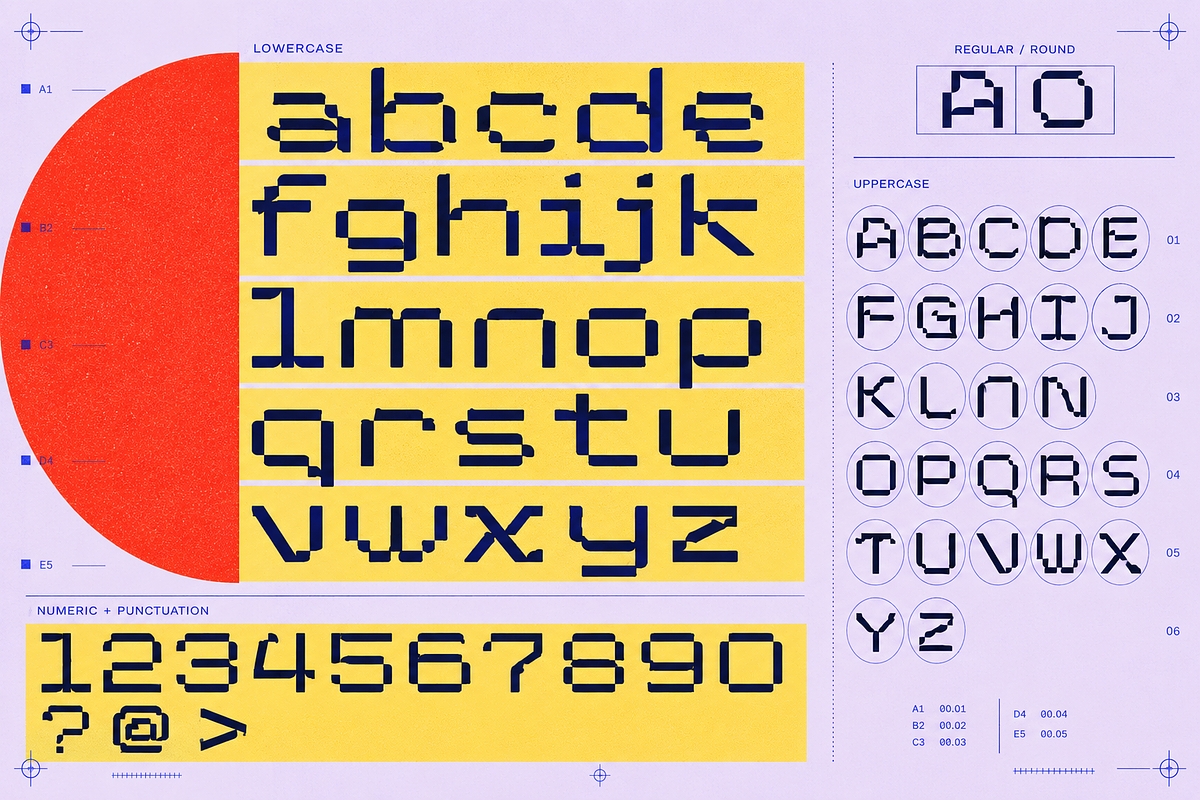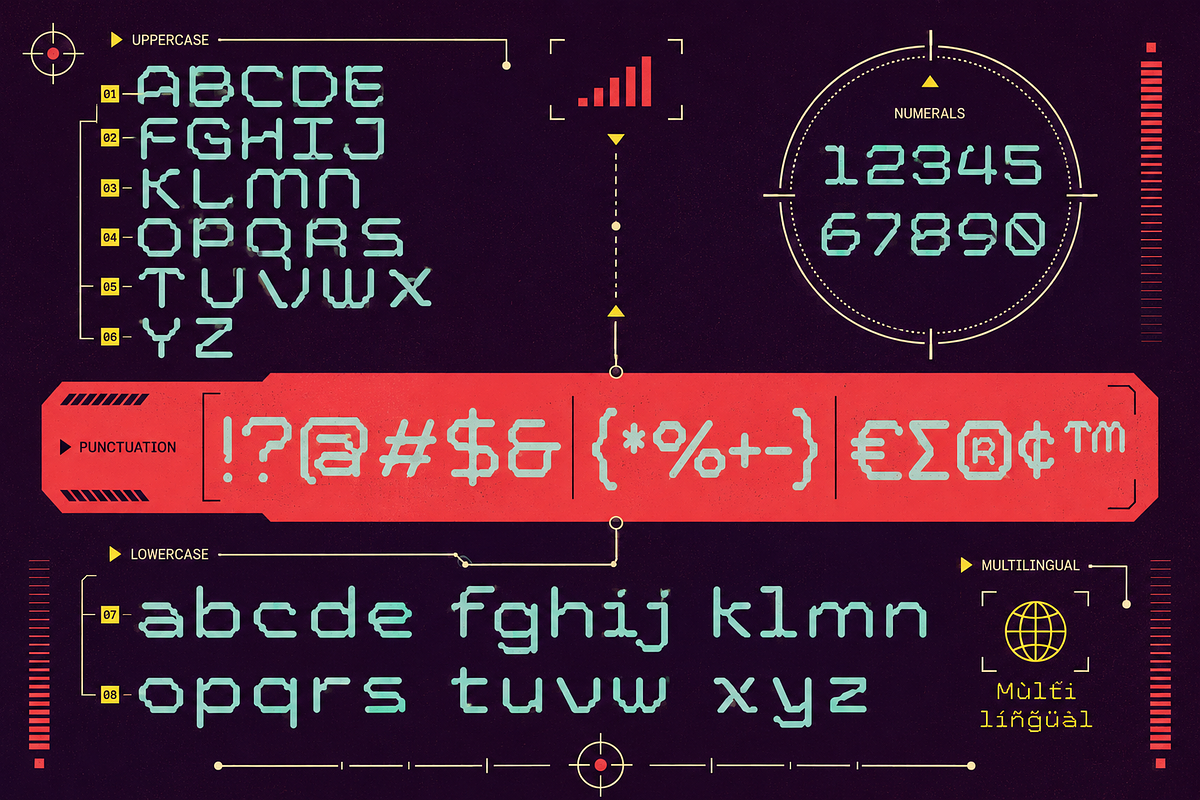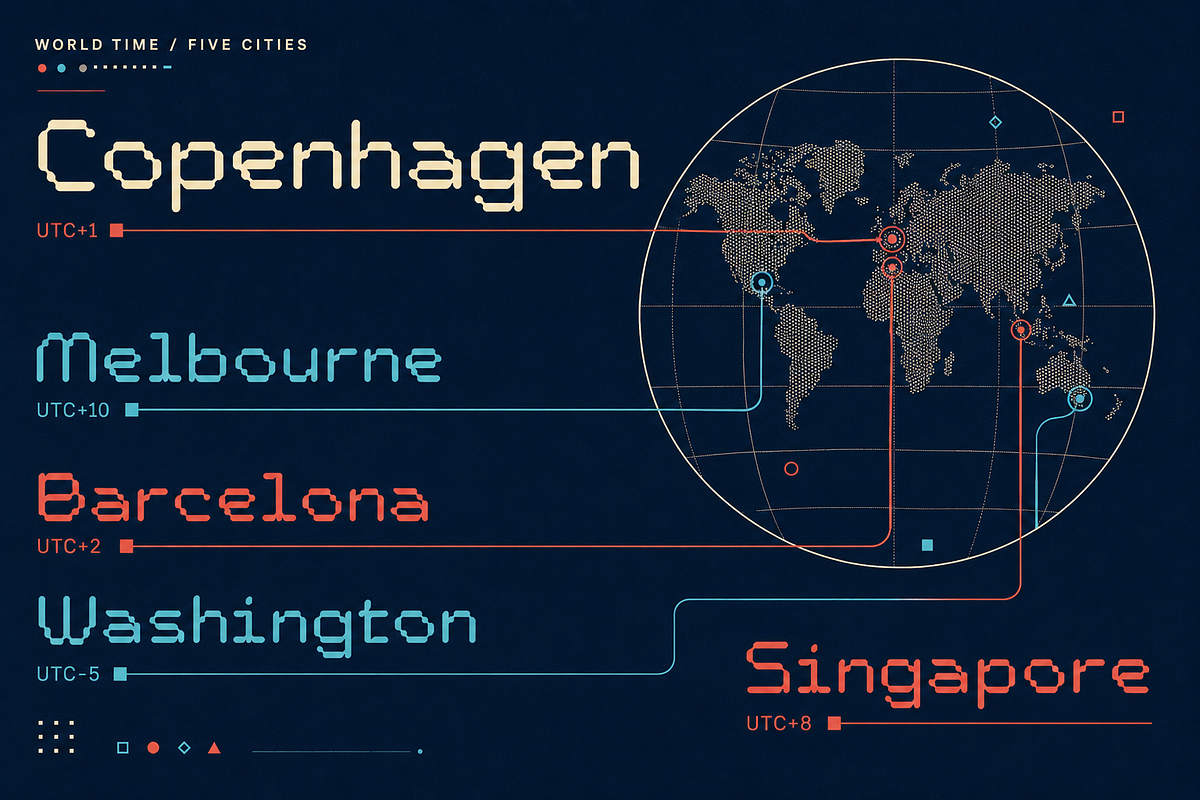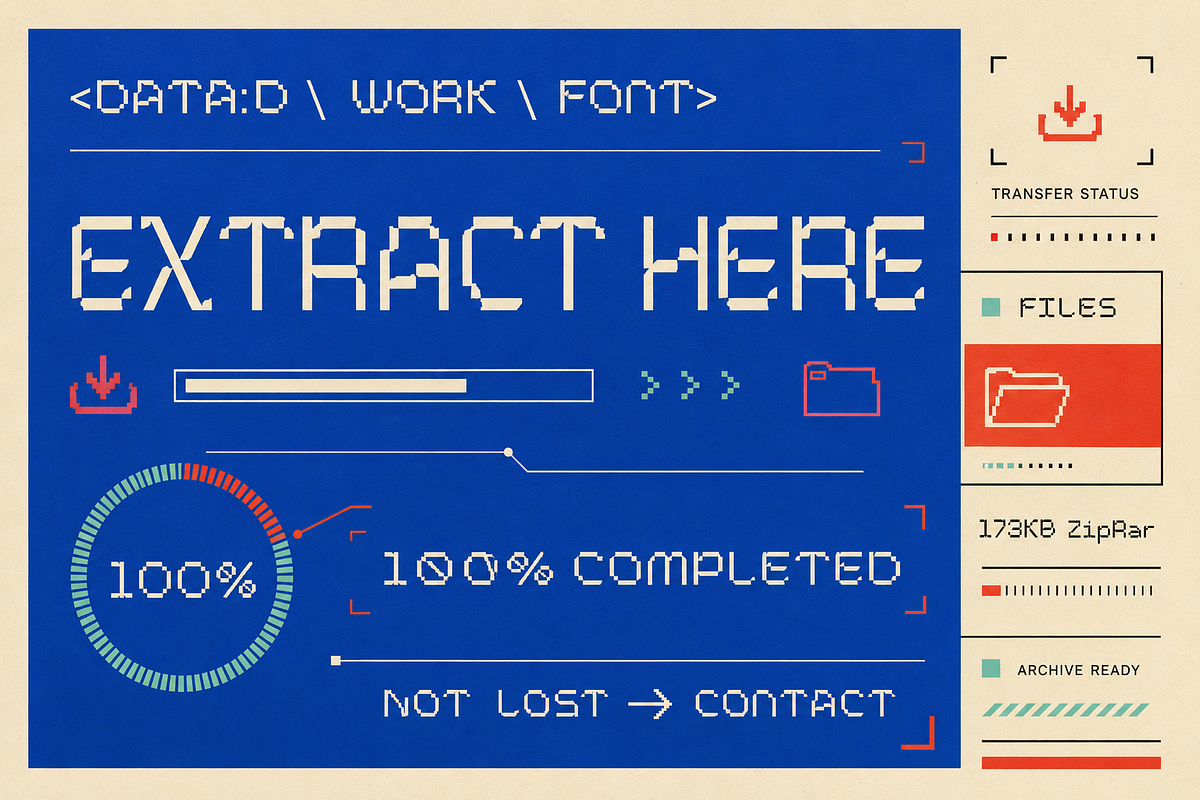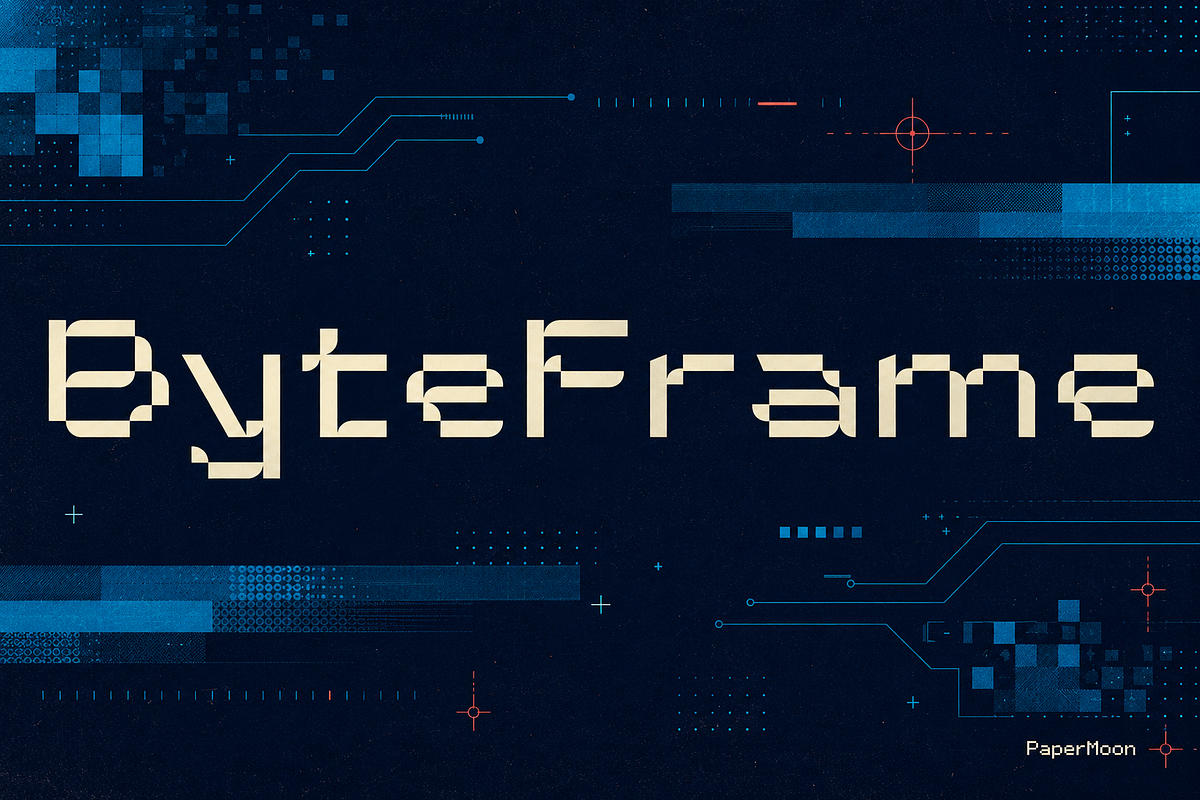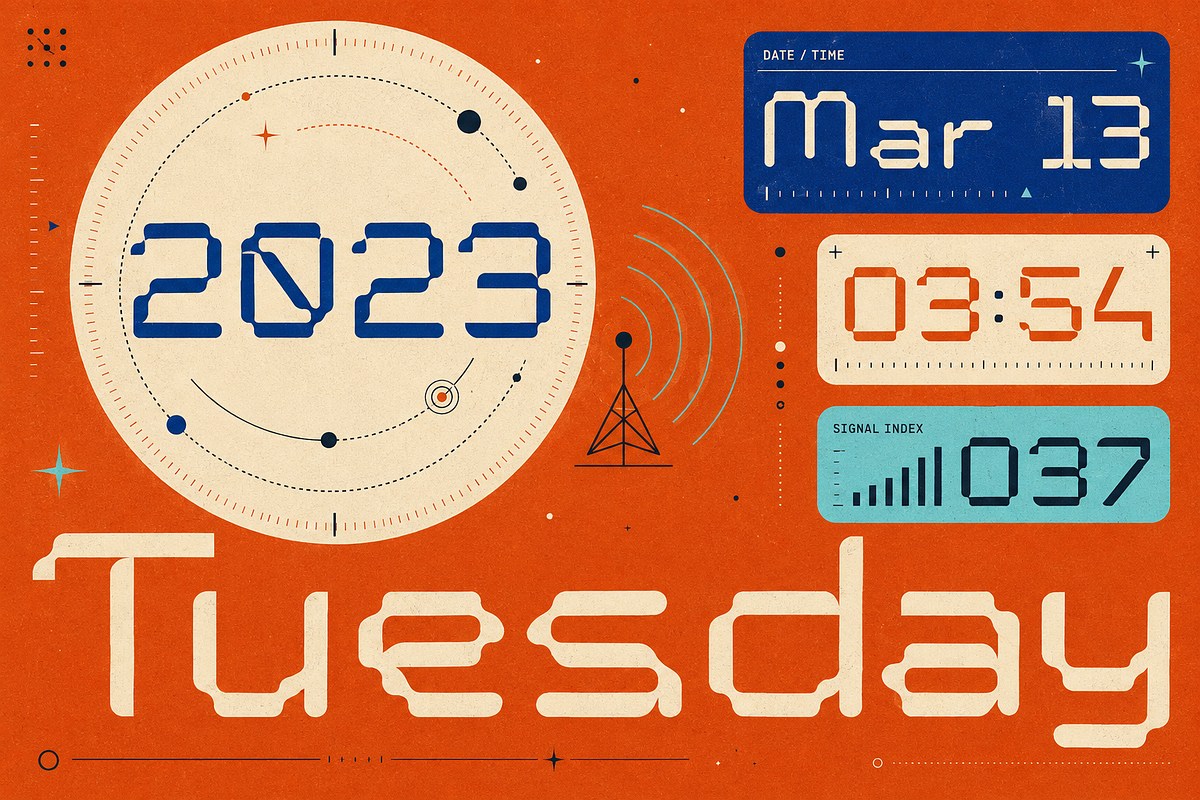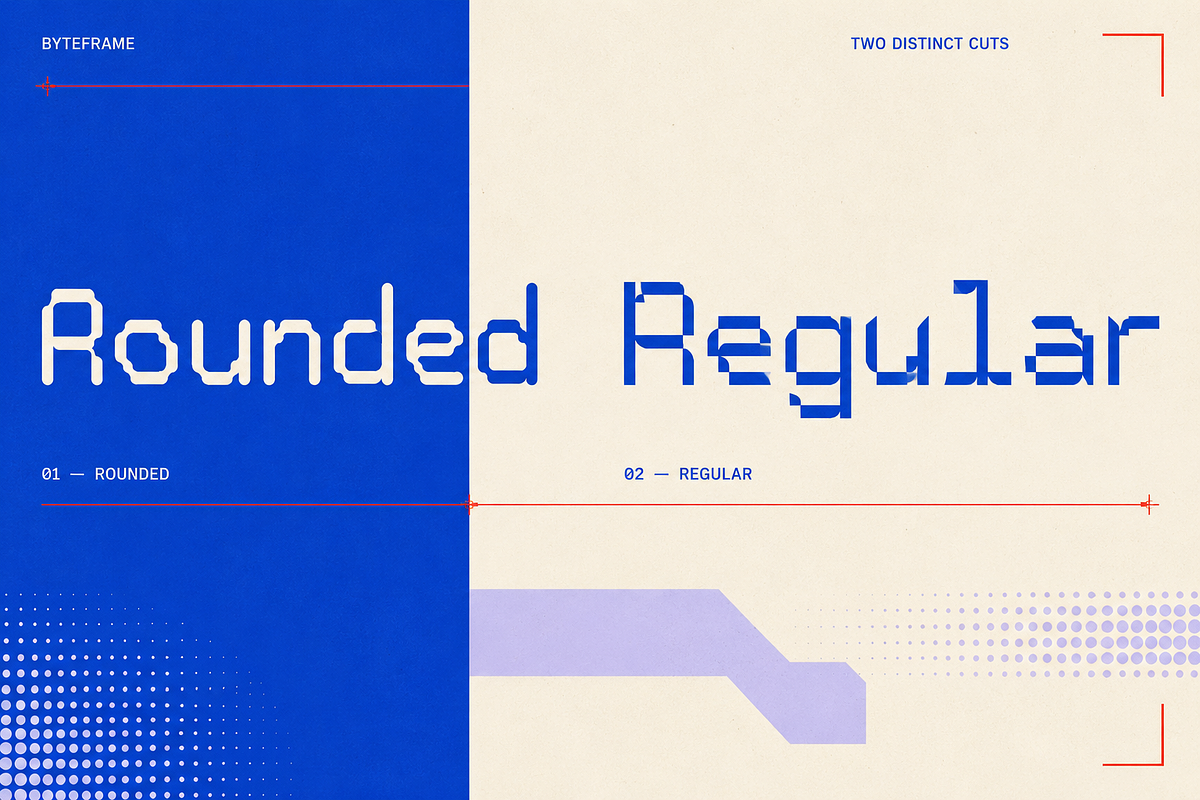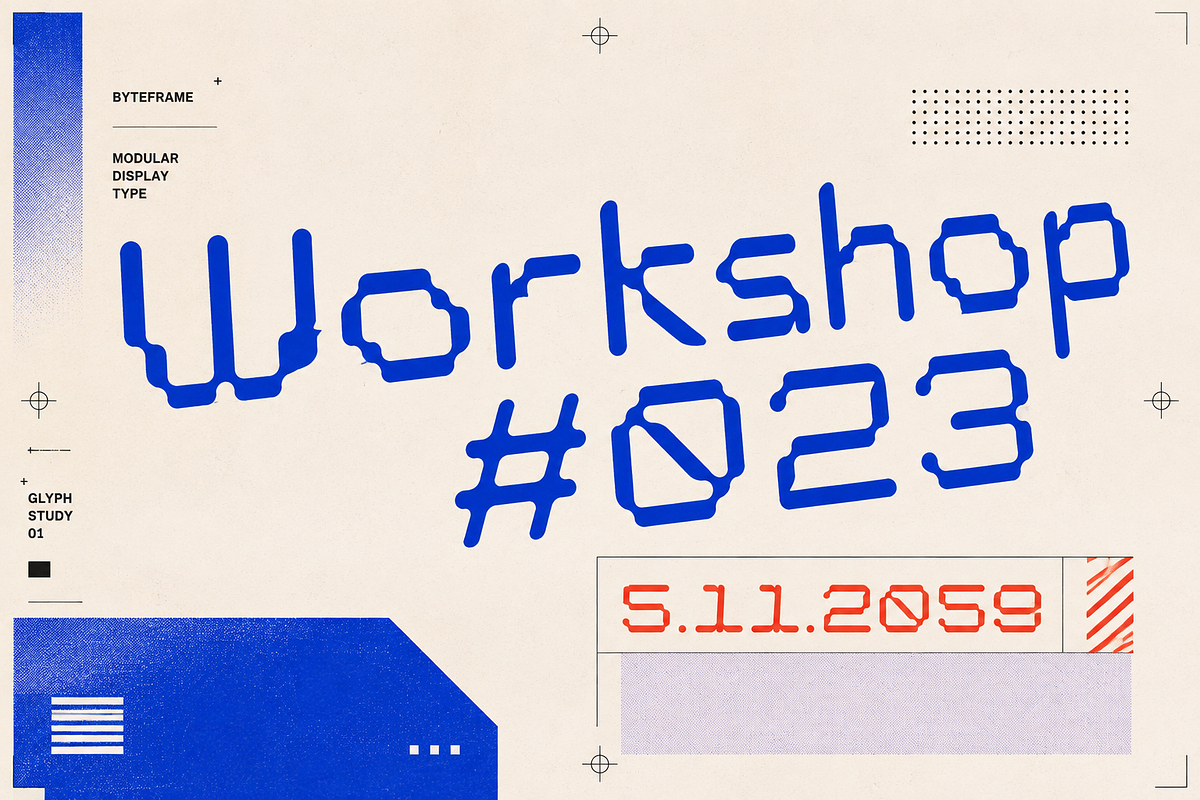
ByteFrame - Retro Pixel Font Duo
ByteFrame is a retro pixel font that pairs the raw energy of 8-bit arcade screens with the clean precision today's design tools expect - two styles, one cohesive grid, zero guesswork.
ByteFrame is a font duo with 2 styles: Regular for sharp, technical pixel letterforms and Rounded for a softer, friendlier edge. Every glyph is drawn on a structured monospaced grid, so game UI, headlines and pixel art titles all keep the same steady rhythm. Each style carries 383 glyphs covering Basic Latin, Latin-1 Supplement and Latin Extended A/B, giving you strong readability for digital and print work - verified by fontTools inspection before packaging.
2 styles in one duo: Flip between Regular and Rounded to shift from hard tech to playful arcade without changing your font stack.
383 glyphs per style: Full Latin-1 plus Latin Extended A/B, so accented European characters are already drawn - no last-minute font surgery for your copy.
Monospaced grid: Every character holds the same width for authentic retro terminal and HUD rhythm, with balanced proportions that stay legible at display sizes.
OpenType extras: Standard ligatures, kerning, historical forms, ordinals, superscripts, fractions and localized forms are included and working in compatible apps.
Use it for:
Gaming interfaces, HUDs and retro video game title screens
Pixel art titles, arcade branding and tech identity work
YouTube thumbnails, stream graphics and esports social posts
Posters, album art, retro packaging and merchandise
Futuristic editorials and digital campaigns
Press start on ByteFrame and give your next project typography with a built-in high score.